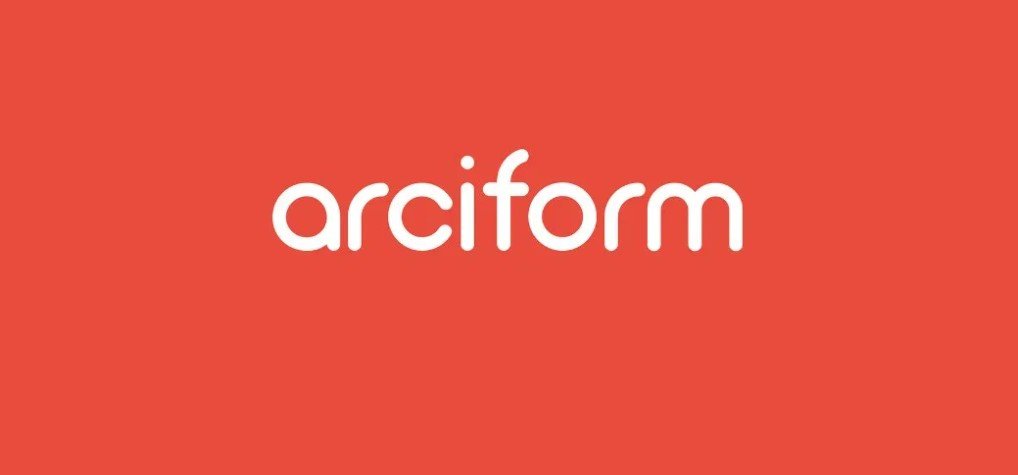
Arciform Typeface Font is part of the great quality sans serif rounded typeface family. This font was designed by a Canadian type designer Matt Ellis. He designed many amazing typefaces in his career but this arciform typeface was known to be the best one.
There are many great things about this typeface but the most important one is that the sharpness, and smoothness this typeface provides to the content is just amazing and when it used with the little mandy font it provides a great texture.
This typeface contains really edges for its glyphs and the character set of this font family is also really big and it comes with both the uppercase and lowercase letters some special symbols and numbers also.
Arciform Typeface Font is the baron typeface that is really much similar to the gilroy font. Most people around the world use different devices and this typeface is compatible with all of them. Font Similar To Arciform Typeface
Arciform font is a graphic design font that we can use in directories, annual reports, and magazines, etc.
Arciform is one of the best geometric typefaces that is developed and presented by Matt Ellis.